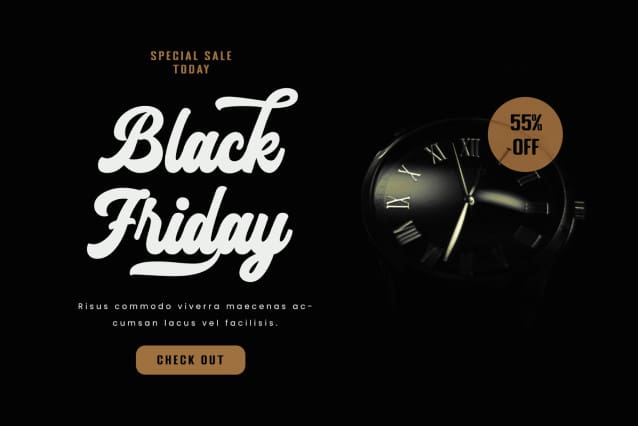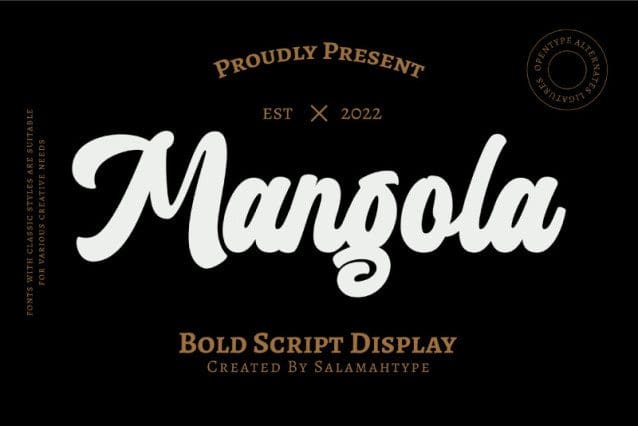
Mangola Script Font
Mangola Script Font is a cool bold script font. This type of font is perfect for those of you who want to build brand character such as making logos, product packaging, labels, and whatever you want.
Designer Name: salamahtype